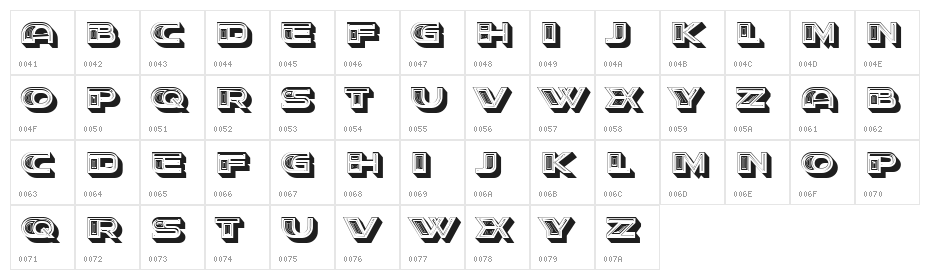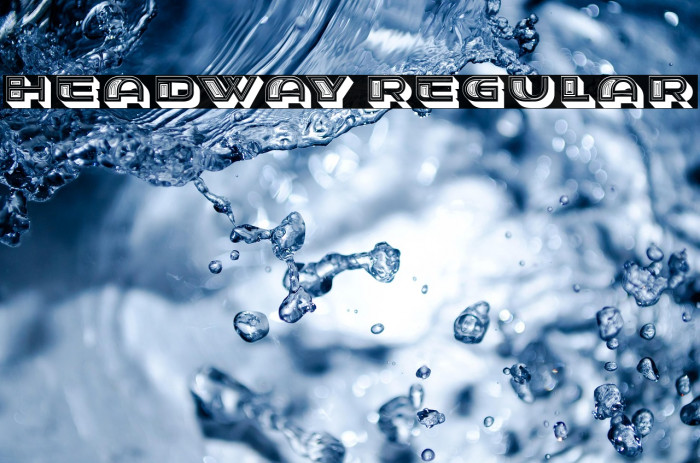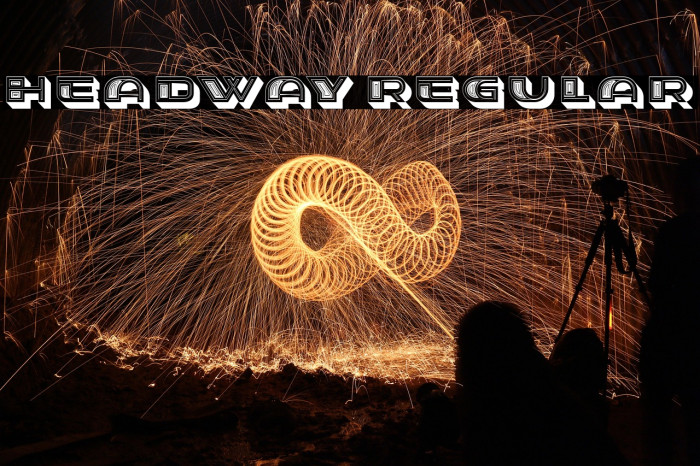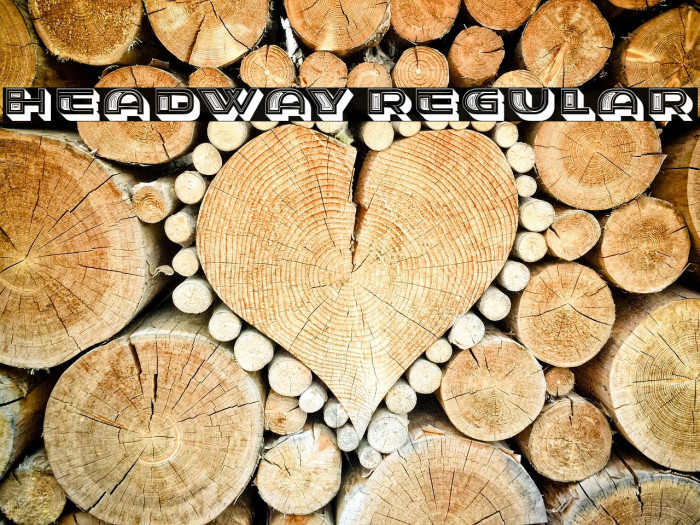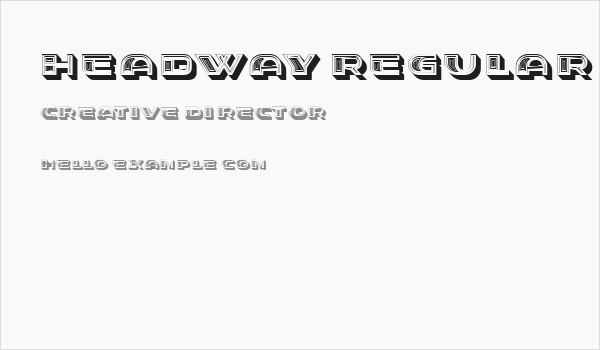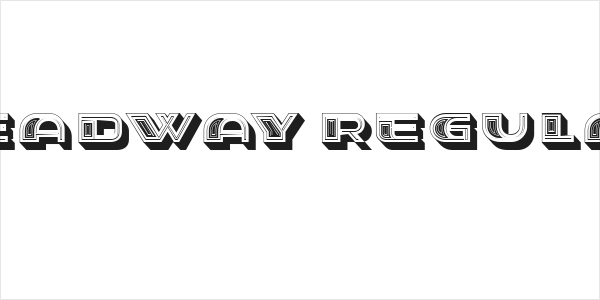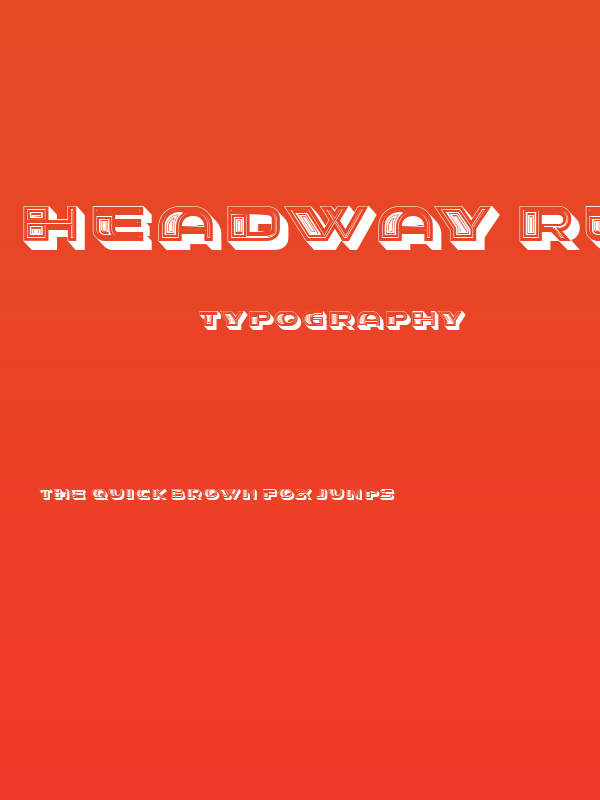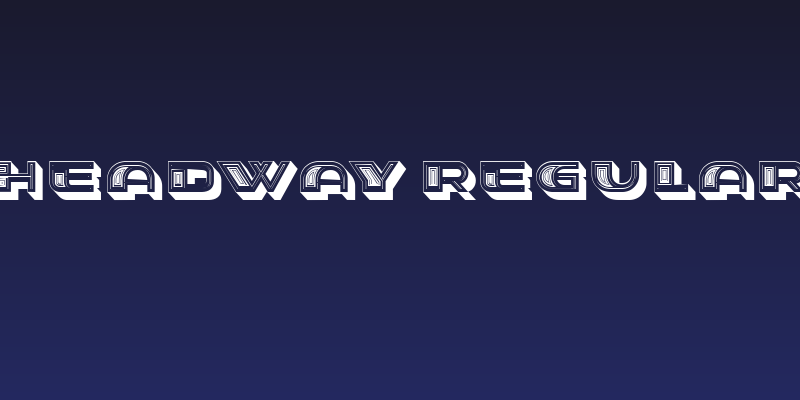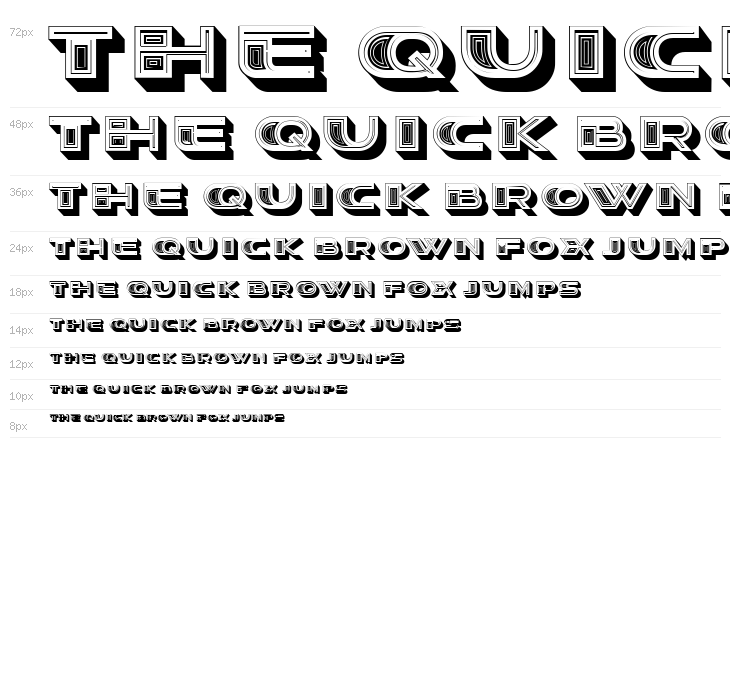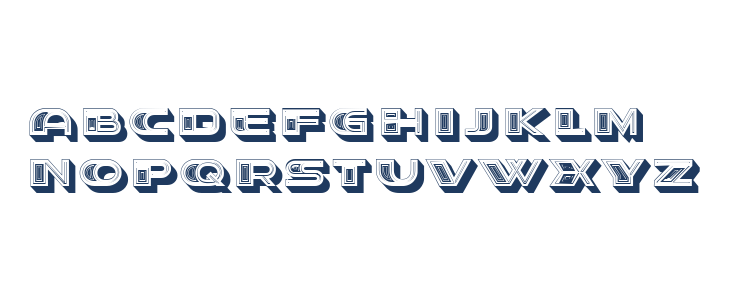
Headway Regular Font
Headway Regular Description
This font features a bold and striking design with a three-dimensional effect, giving each character a sense of depth and shadow. The letters are uppercase, with clean lines and geometric shapes that create a modern and dynamic appearance. The font's layered style adds a sense of movement and energy, making it suitable for eye-catching designs. Its structured form and bold presence make it ideal for headlines and titles that require a strong visual impact. The font's unique style can add a contemporary and artistic touch to various design projects.
| Proposed Projects | Ideal for posters, headlines, branding, and any design requiring a bold statement. |